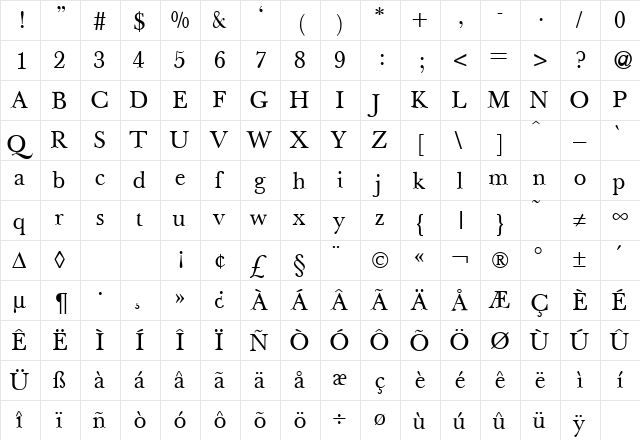
BaskervilleBook Regular
Design Context for BaskervilleBook Typeface
BaskervilleBook offers clean, dependable letterforms without strong stylistic allegiance, making it a practical choice for designers who need flexibility.
Pro Tip: Use BaskervilleBook in both headline and body roles to test its range before committing to a single application.